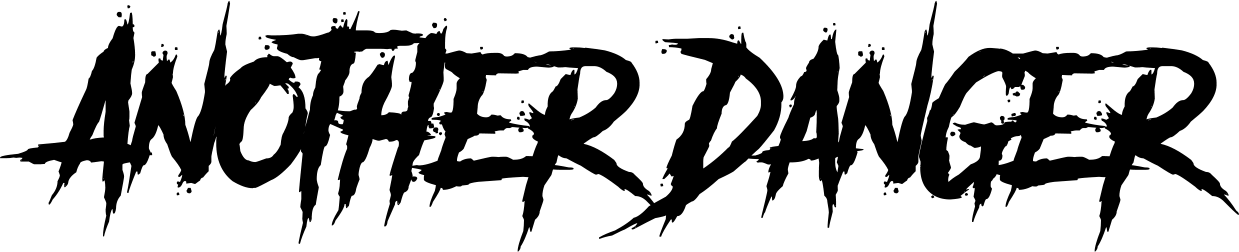
Another Danger Font
A horror slasher font, trashy, and with violently rough brush strokes. Another danger is a scratched font on another level, retro, and hardcore. Use them in your movie posters, scary games, and any other projects in need of spooky elements.
The kind of typeface that proves its usefulness from time to time. With unruly inks delivered to every glyph produces the enigma to it. Bring in the hardcore vibe, the retro feel, the artworks of chaos. Splatter your creativity with Another Danger!